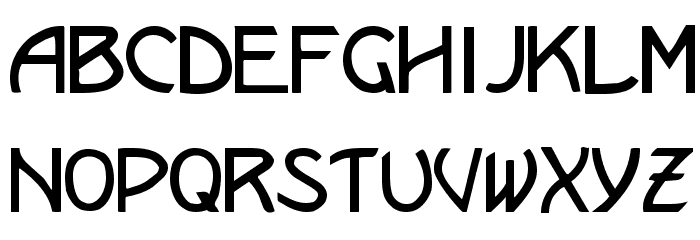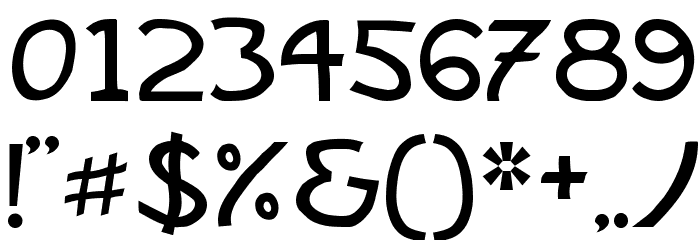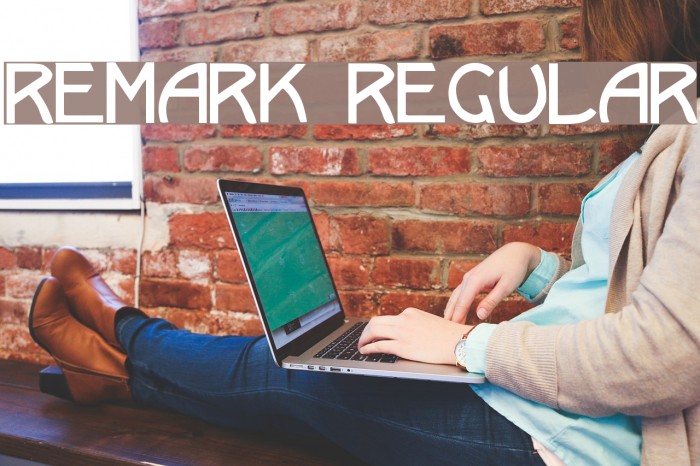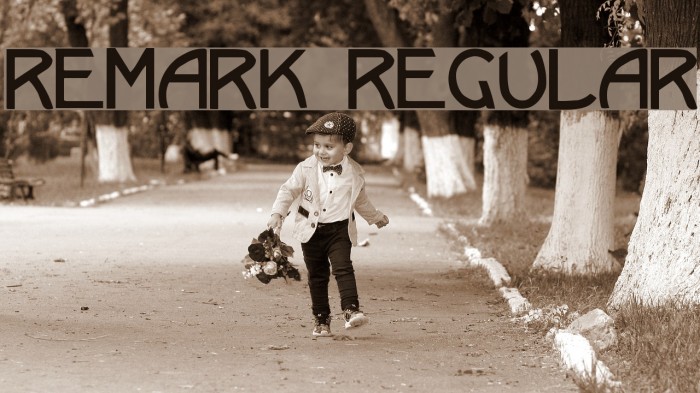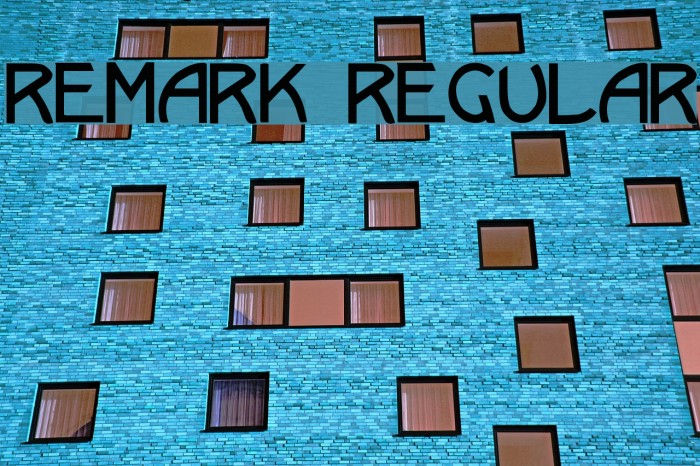
Remark Regular Font
This font features a playful and dynamic style with a modern twist. The characters are bold and slightly condensed, giving them a strong presence on the page. The strokes are consistent in width, providing a uniform appearance. The uppercase letters have a unique flair, with some characters exhibiting slight curves and angles that add to the font's distinctive look. The lowercase letters maintain the same playful style, complementing the uppercase set. The numerals are clear and easy to read, with a consistent design that matches the alphabet. Special characters are well-integrated, maintaining the overall aesthetic. This font is ideal for projects that require a bold and modern touch.
A playful, bold font with a modern twist and consistent stroke width.
- Proposed Projects: Ideal for branding, posters, headlines, and any project needing a bold, modern aesthetic.